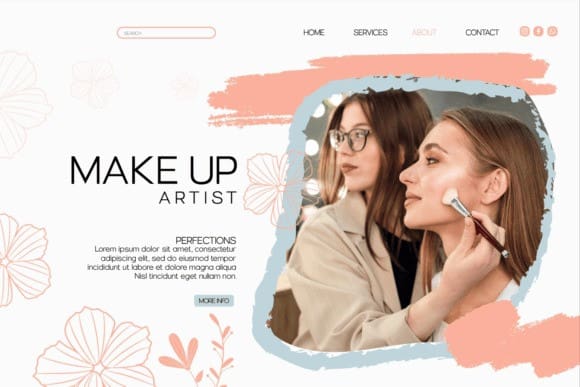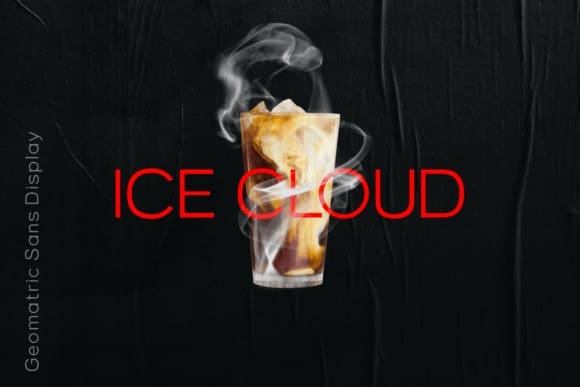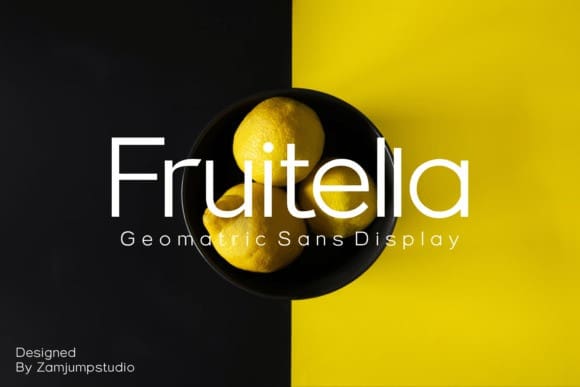
Fruitella Font
Fruitella Font is a geometric sans serif look. Designed with powerful opentype features in mind. equipped with ligature standards that are different from ligatures in general. Perfect for graphic design and any display use. It can easily work for web, signage, corporate, and also for editorial design.